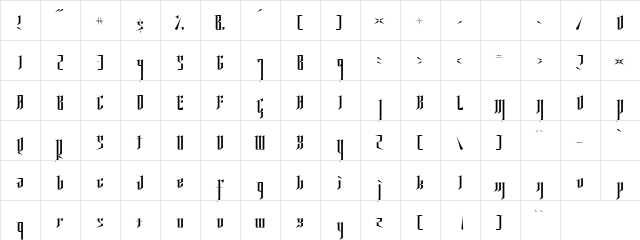
American Style Regular
Design Context for American Style Typeface
American Style is a composed and adaptable typeface that performs quietly and consistently across a wide range of design contexts.